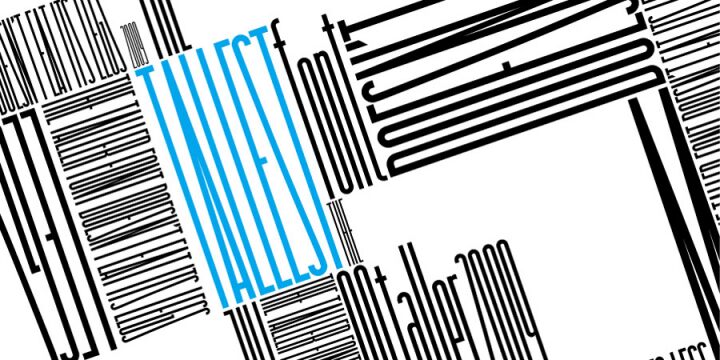
Tallest, designed by Francesco Canovaro, is a free retro monoline display font built from extremely narrow, upright letters. Long vertical strokes dominate the design, with compact curves and tight joins tucked between them. Its silhouette is lean and architectural.
Posters can use that towering profile to suggest Art Deco signage, streamlined machinery, or a stylized city skyline. On album artwork and event graphics, the continuous hairline strokes can become part of the surrounding linear illustration. Fashion branding and slim product packaging gain a precise, period-minded identity from the letters' unusually stretched proportions.
This tall sans serif font is designed to create text patterns with a strong vertical emphasis.